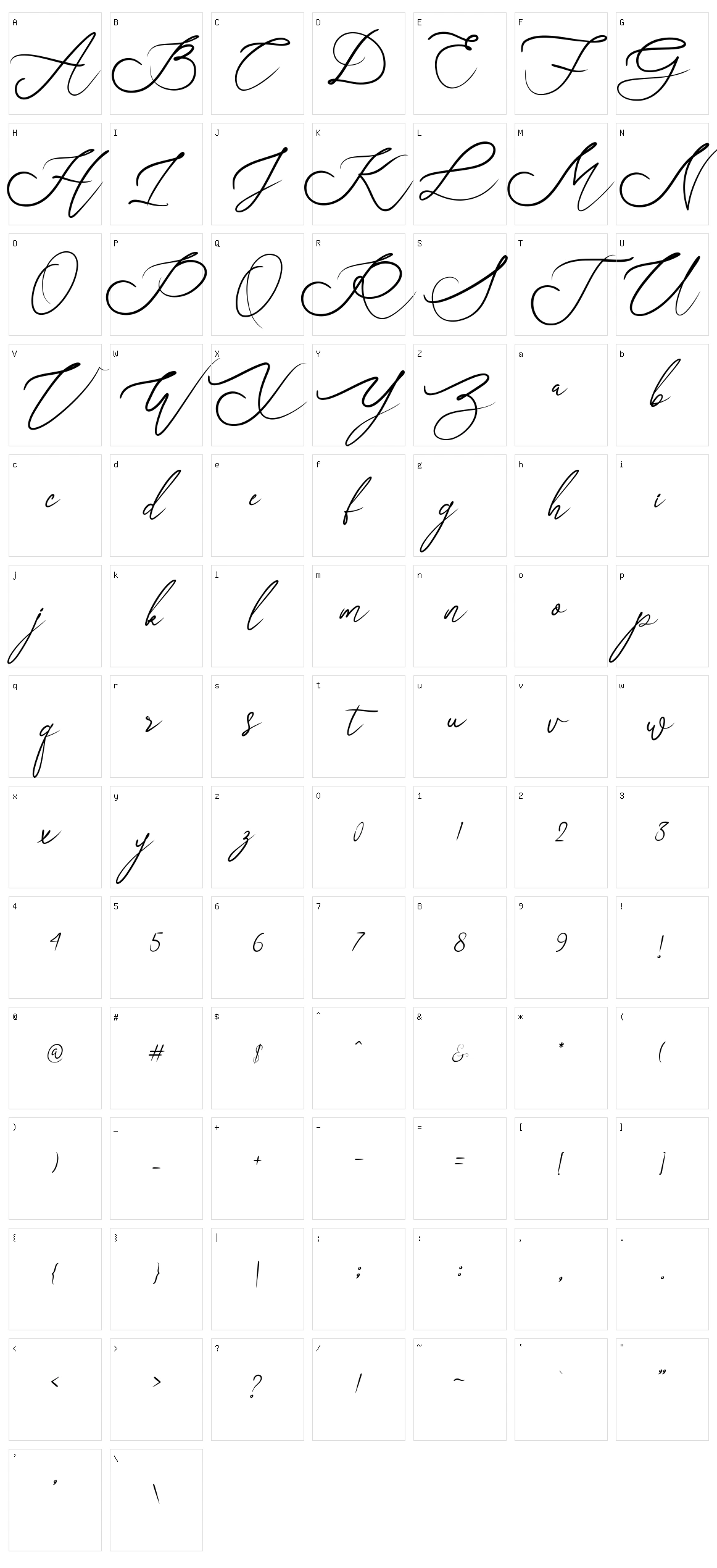
The free font Just Sunday is carefully designed by WDfont, showcasing a thoughtful balance of creativity and usability and falls under the Script font style. When you download the ZIP file, it contains only 242.86 KB of font files, making it lightweight and quick to download. Please review the license details below to understand permitted usage and distribution rights. If license information is not available, we recommend using this font for personal projects only or contacting the author directly for commercial usage permissions.